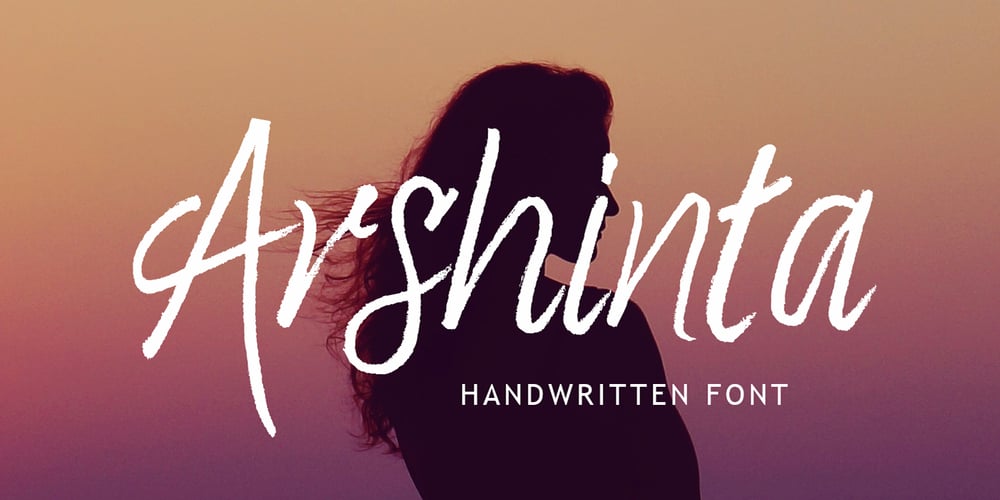
Arshinta Font Family was designed by Nanda Type and published by Nandatype Studio. Arshinta contains 1 styles and family package options. Arshinta is a handwritten, contemporary script with an irregular baseline. It is suitable for use in titles, apparel, invitations, books, stationery design, quotes, branding, logos, t-shirt, packaging design, poster and more.